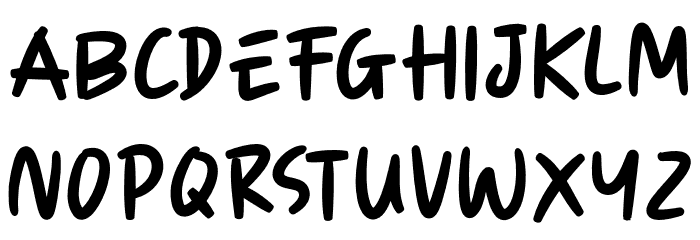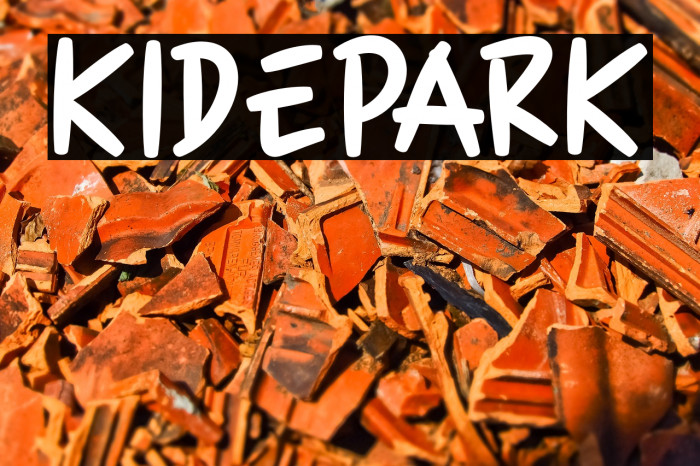
KIDEPARK Font
This font features a playful and energetic handwritten style, characterized by bold, rounded strokes that convey a sense of informality and friendliness. The letters are slightly slanted, adding a dynamic feel to the text. The uppercase and lowercase letters maintain a consistent style, with smooth curves and a casual flair. The font's design is approachable and versatile, making it suitable for a variety of creative projects. Its boldness ensures readability, while the handwritten aesthetic adds a personal touch.
A playful, bold handwritten font with rounded strokes and a casual style.
- Proposed Projects: Ideal for children's books, playful branding, casual invitations, and social media graphics.
- Overall Style: Playful
- Use Case: Headlines, Logos, Informal Text